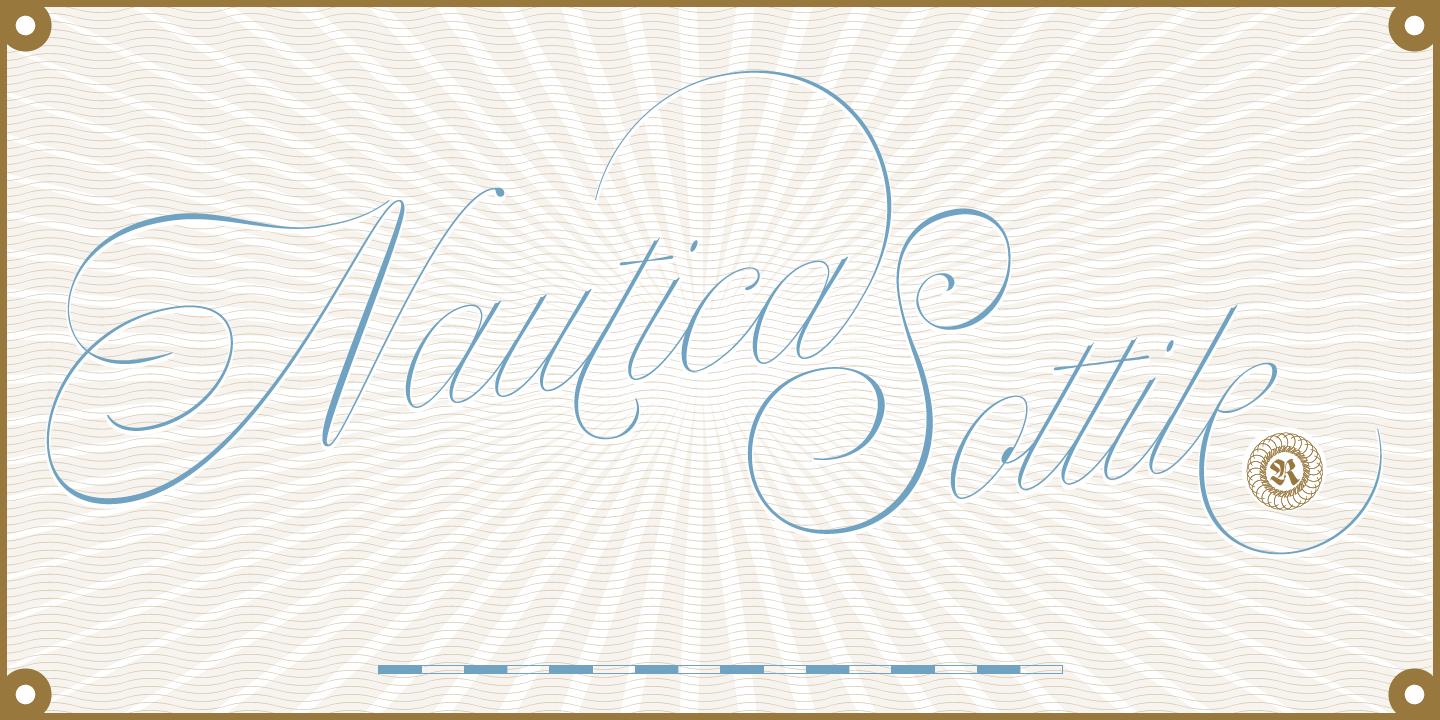
Looking for a refined and flowing script font that evokes elegance and maritime charm? Nautica Sottile Font Free Download is a beautifully crafted typeface perfect for branding, wedding invitations, upscale packaging, and editorial design. With its delicate curves and calligraphic finesse, this font adds a luxurious, handwritten feel to any project.
From coastal boutiques to elegant stationery, Nautica Sottile Font Free Download brings a gentle sophistication that sails smoothly across any creative endeavor.